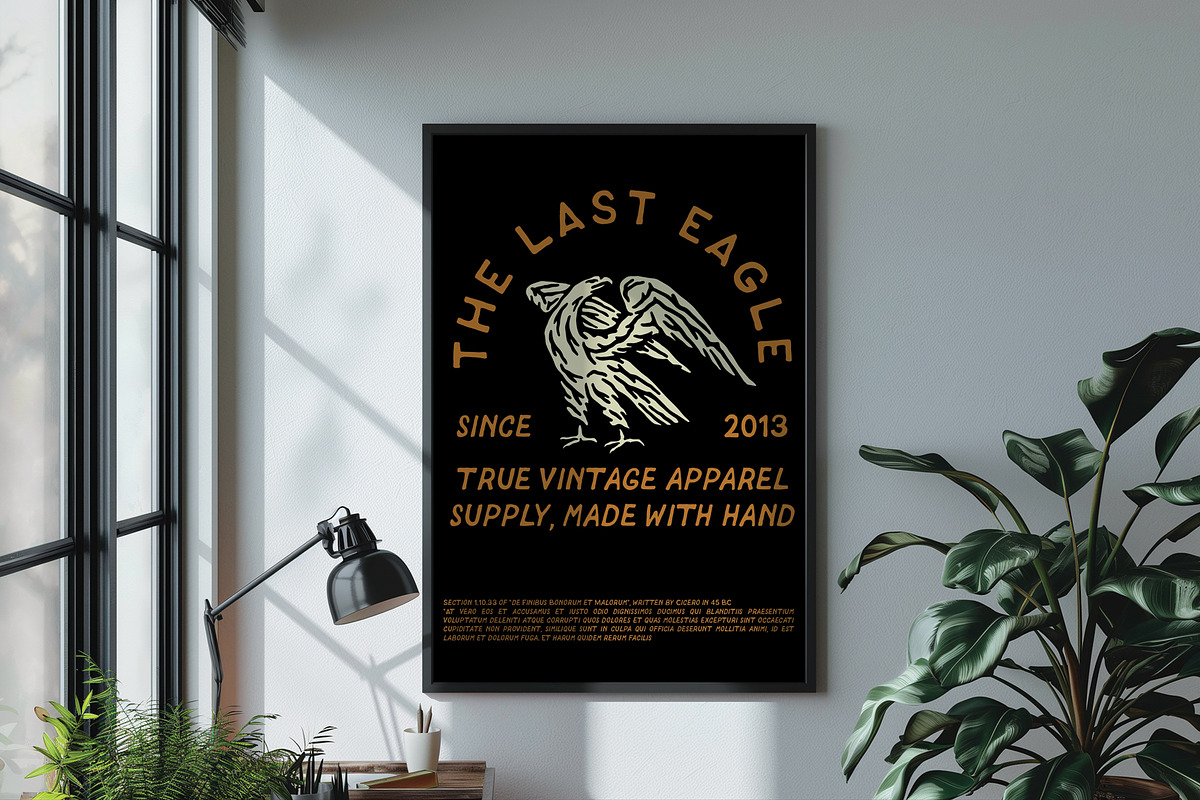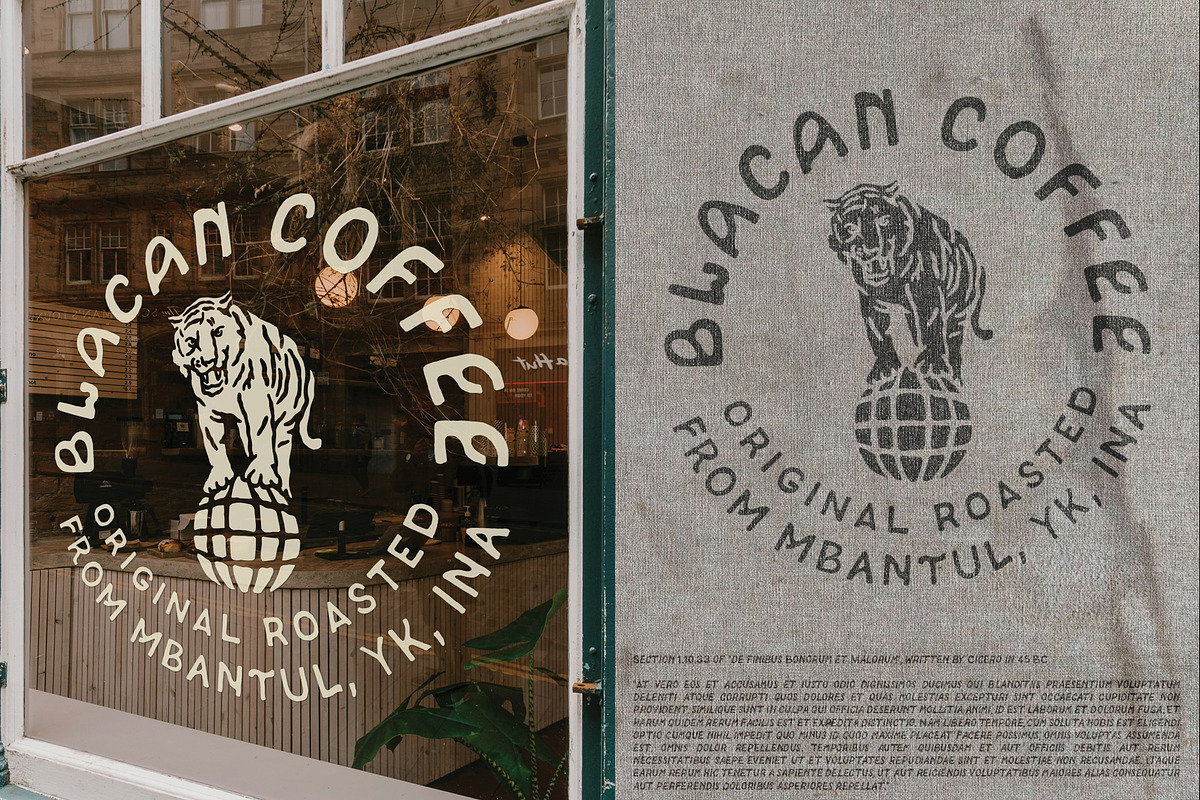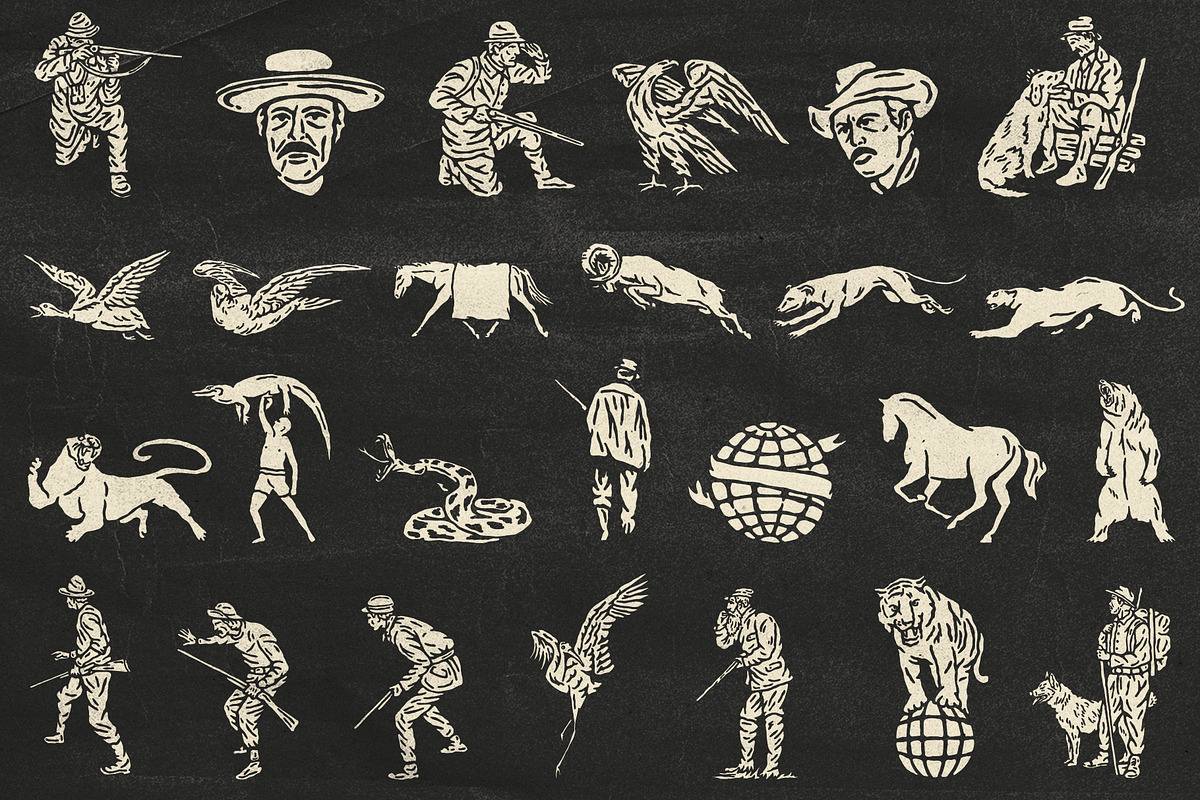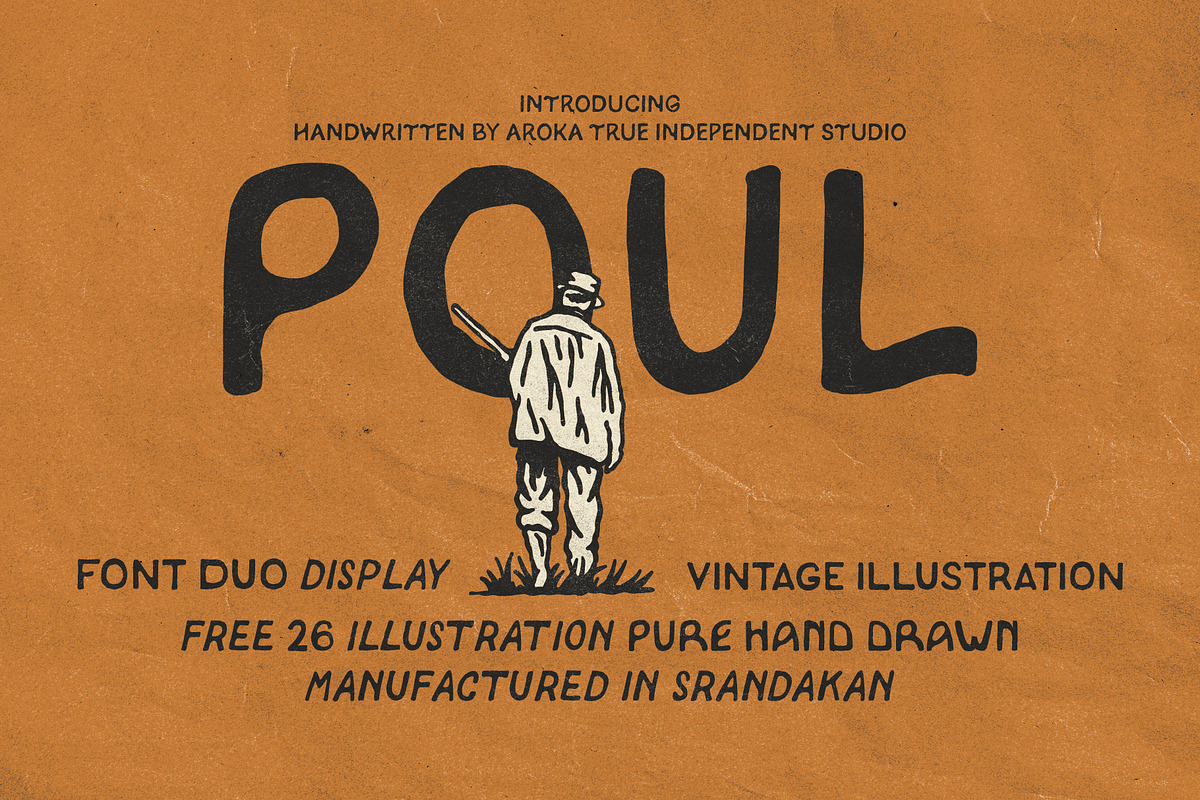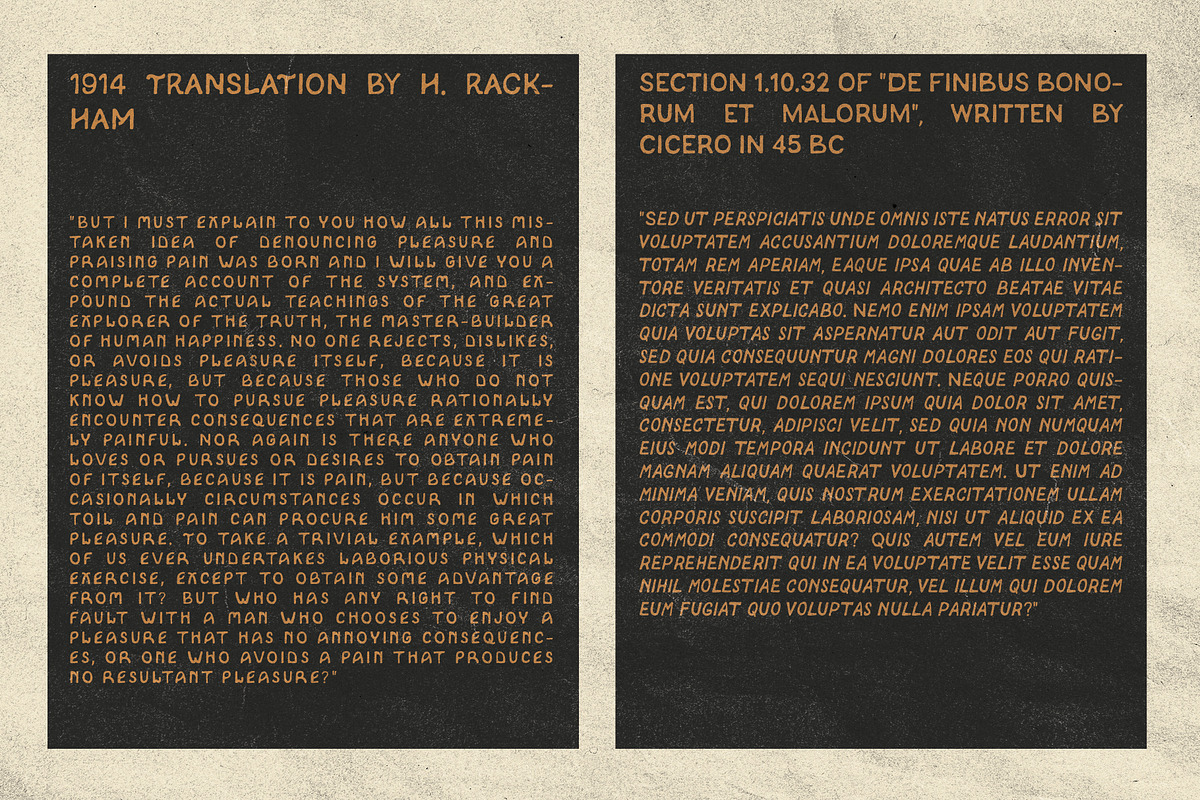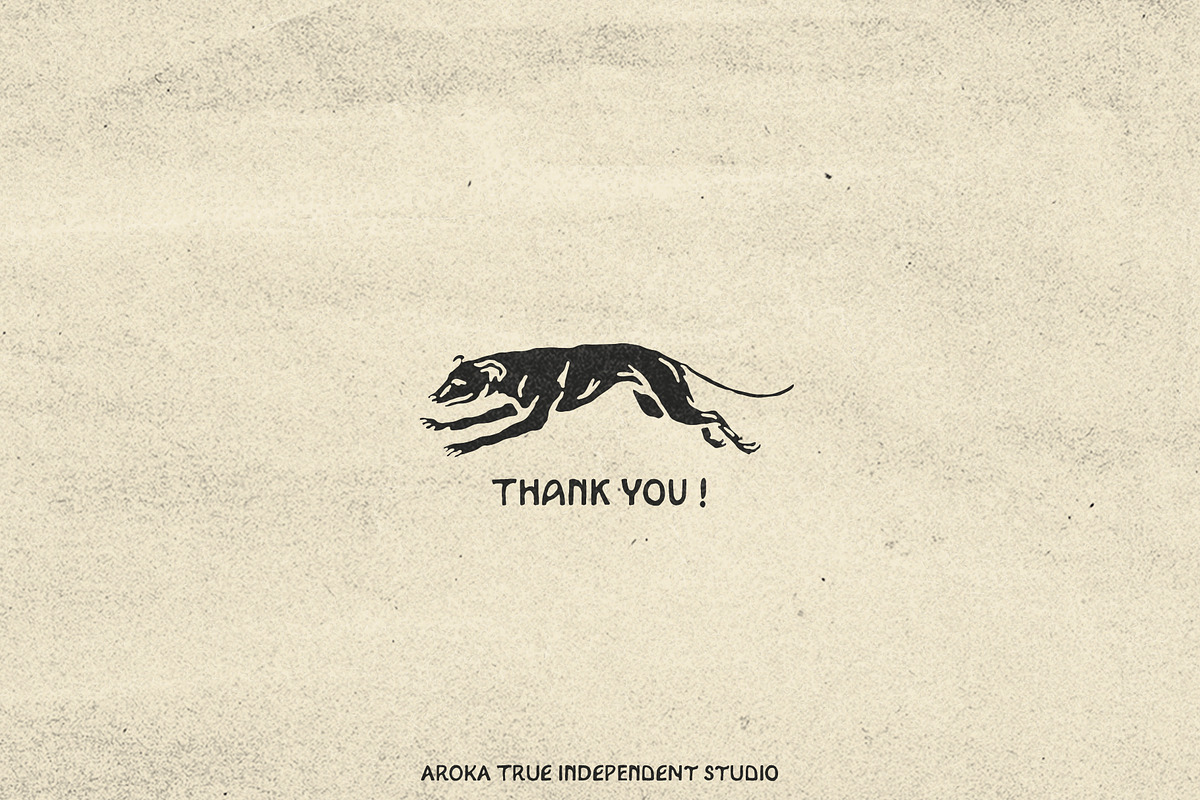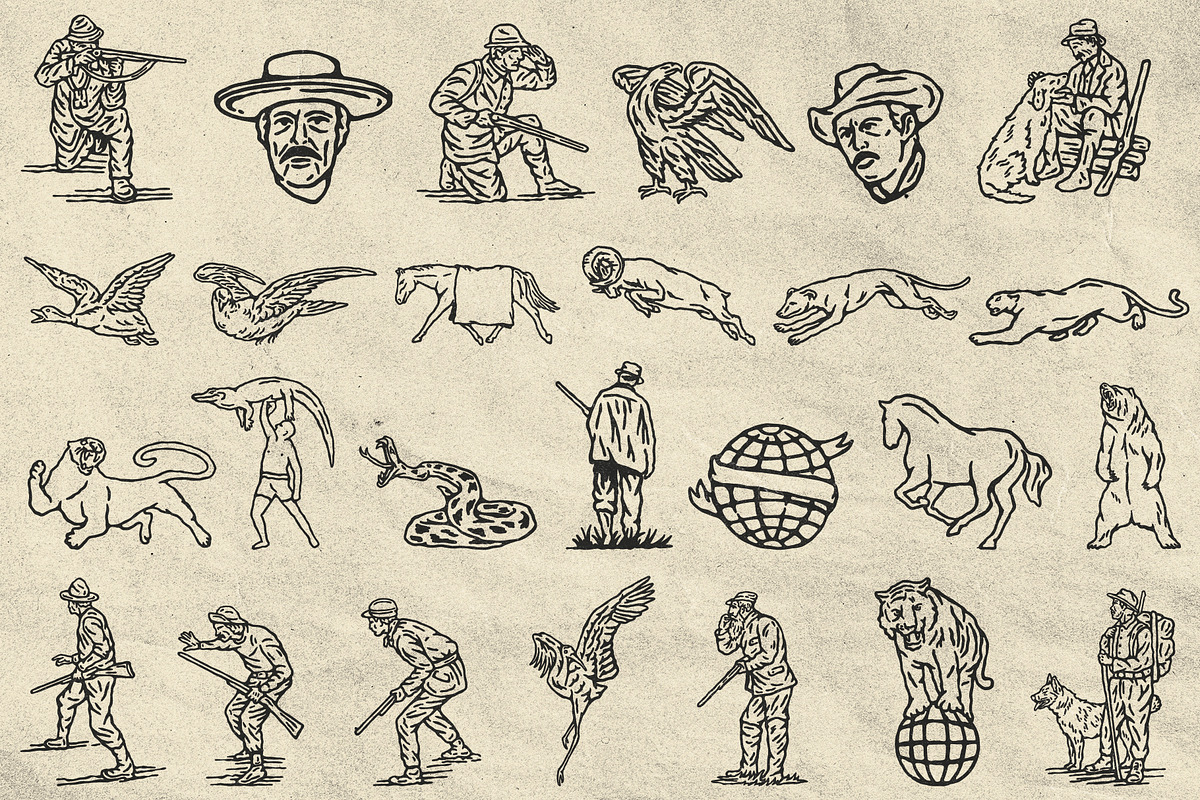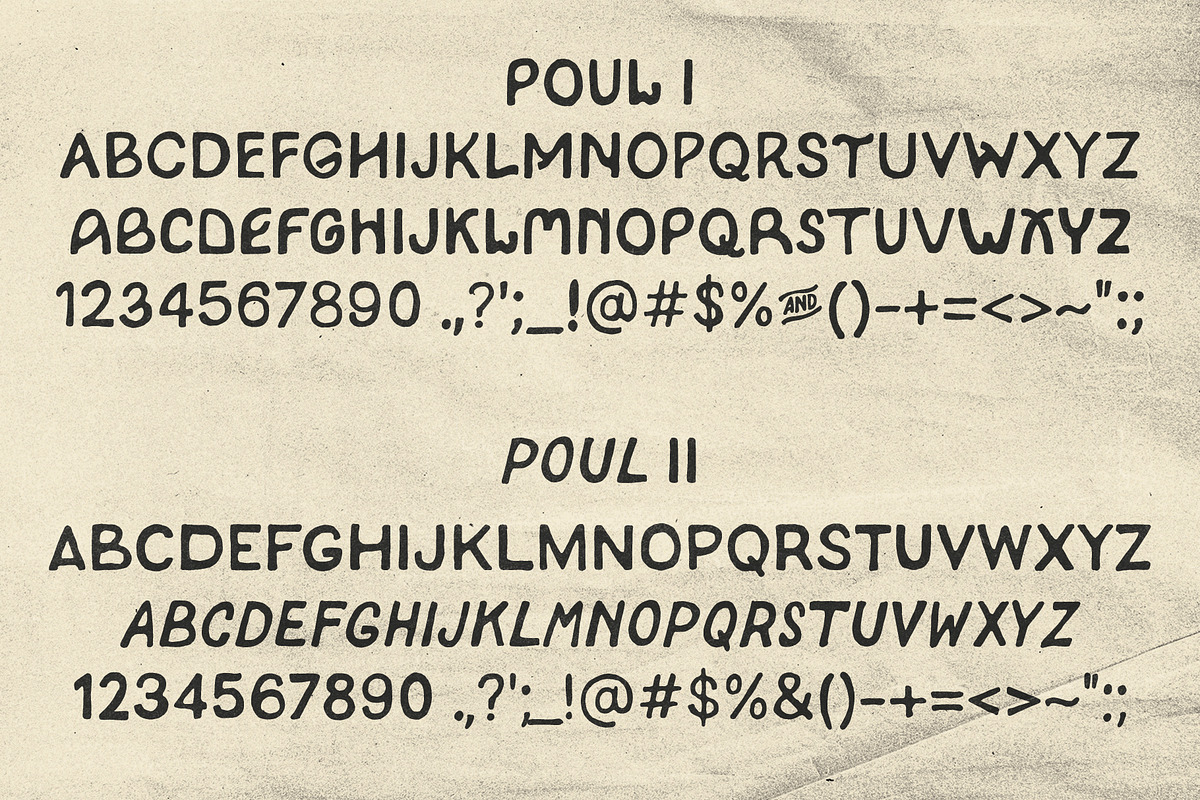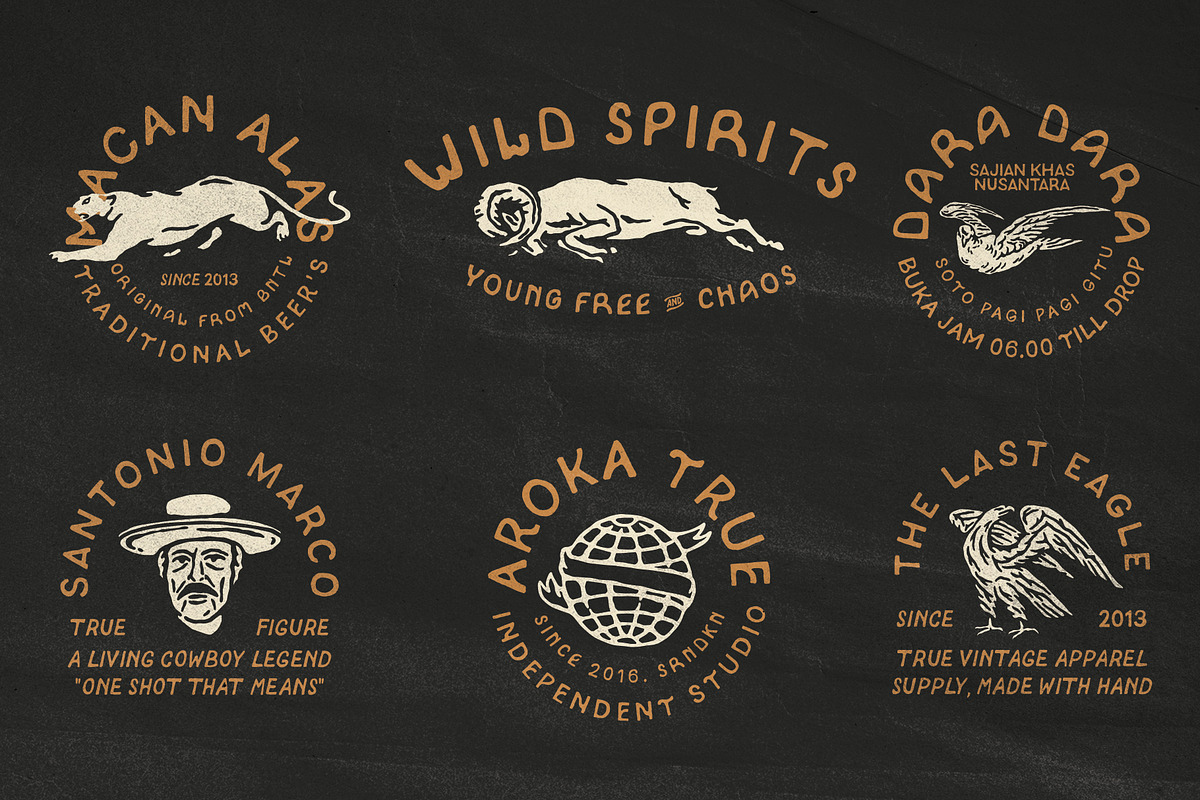
Poul Handwritten
This font is inspired by several visual fonts on the streets, such as street vendors who write their brand names, menus, product names and so on, this is a display font, with a bonus of 26 hand-drawn illustrations, in Adobe Illustration, PDF, SVG and PNG formats while the font is in OTF format, don't hesitate to try or contact me! thank you!